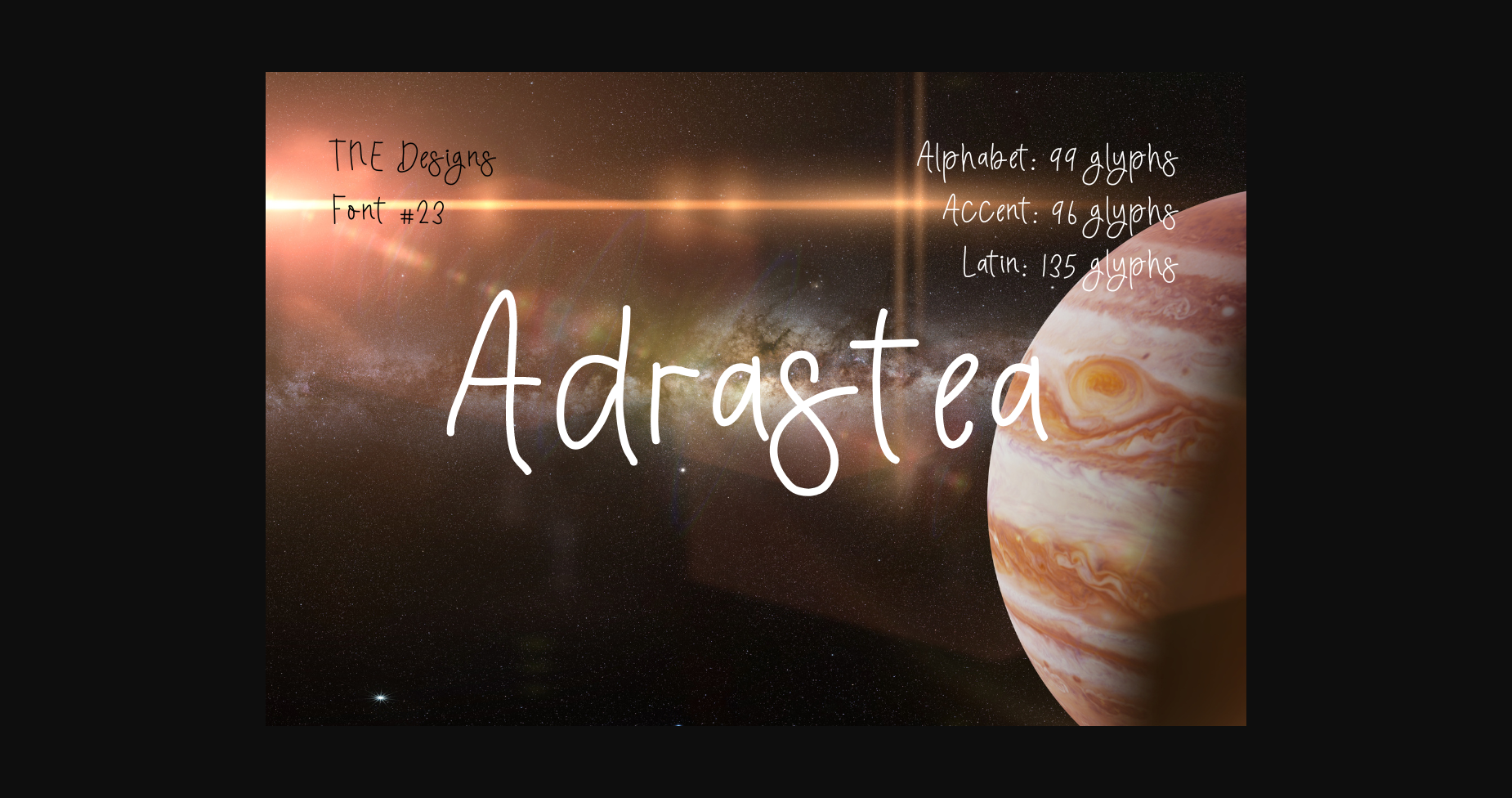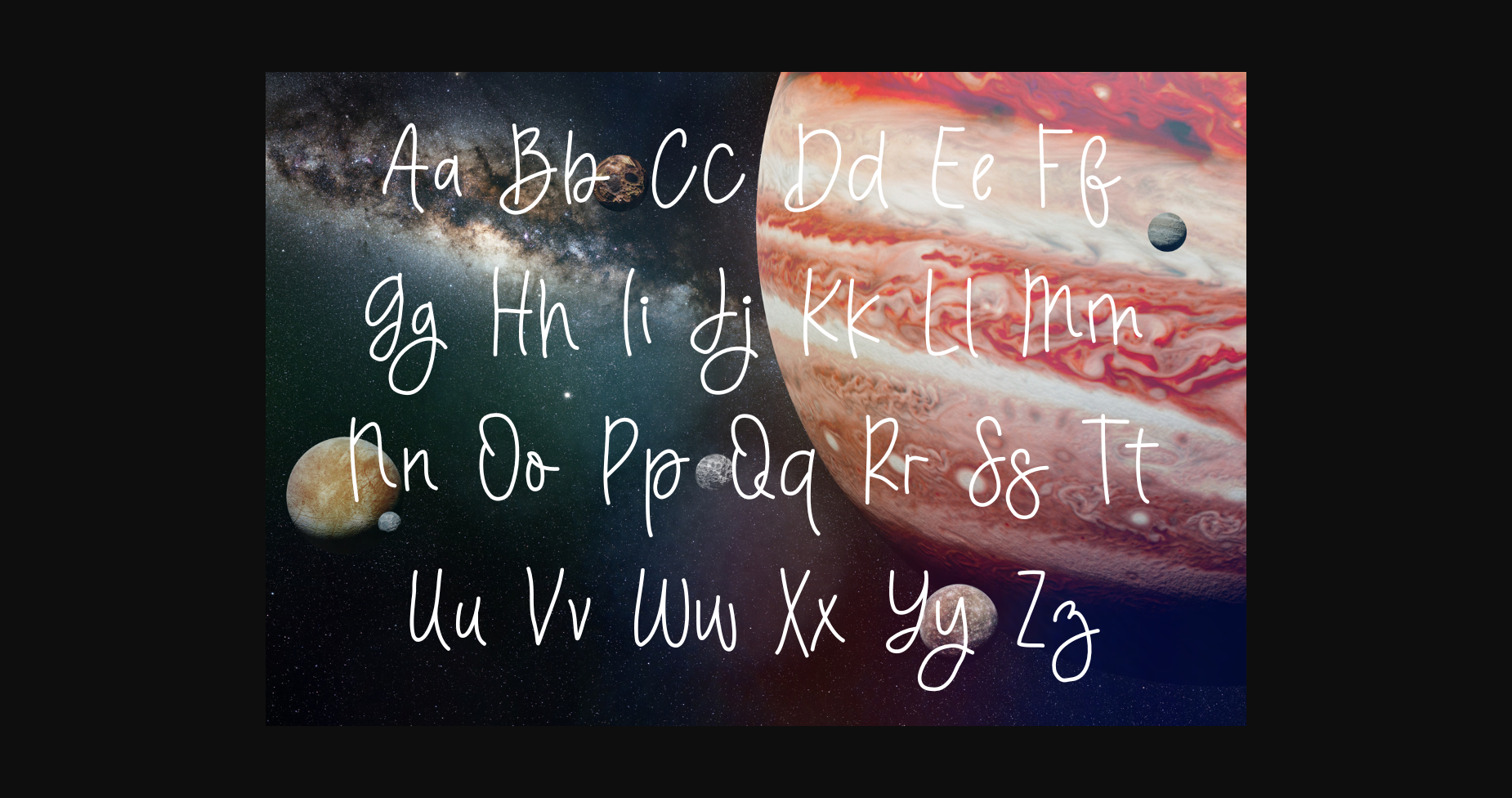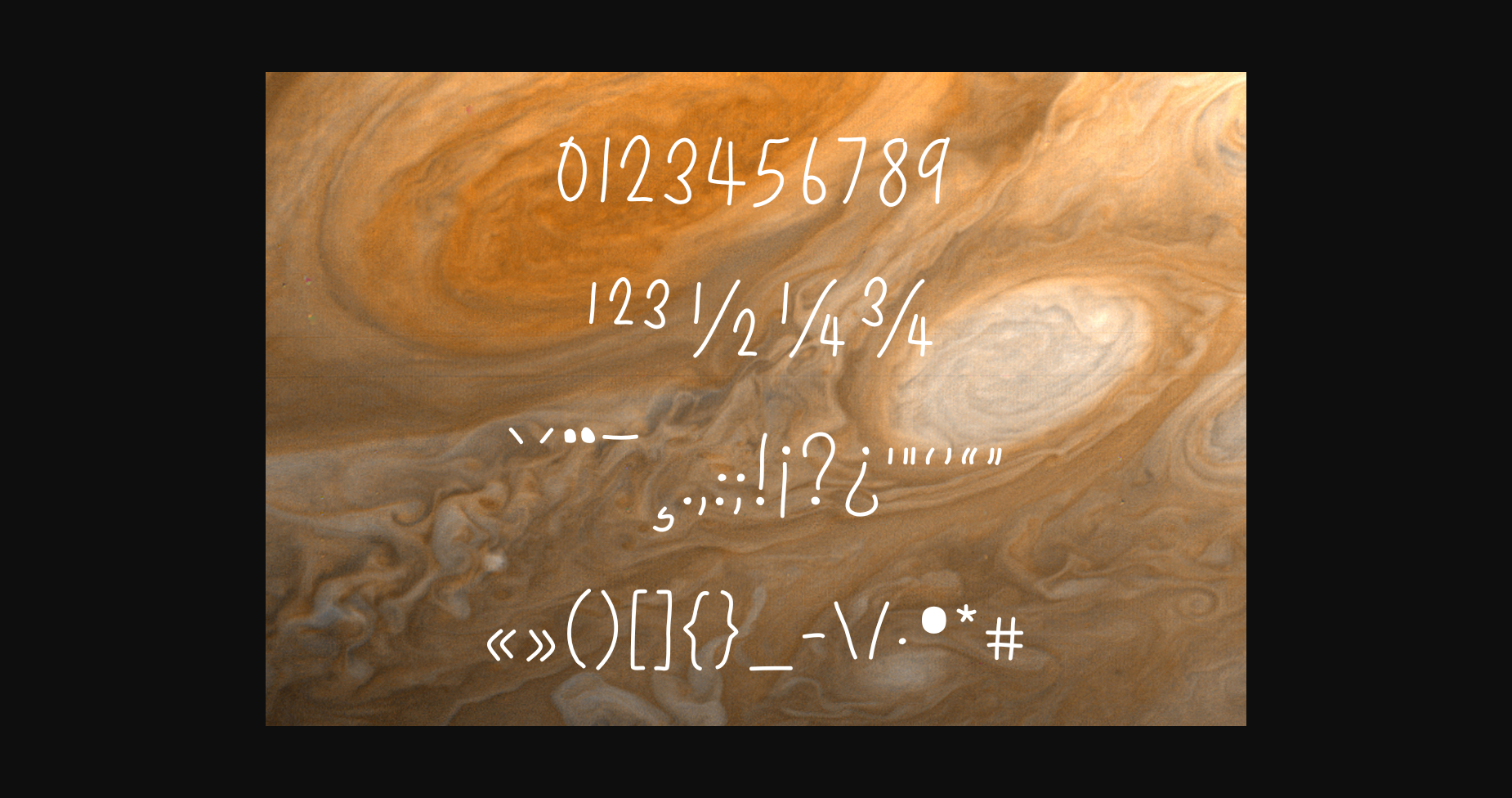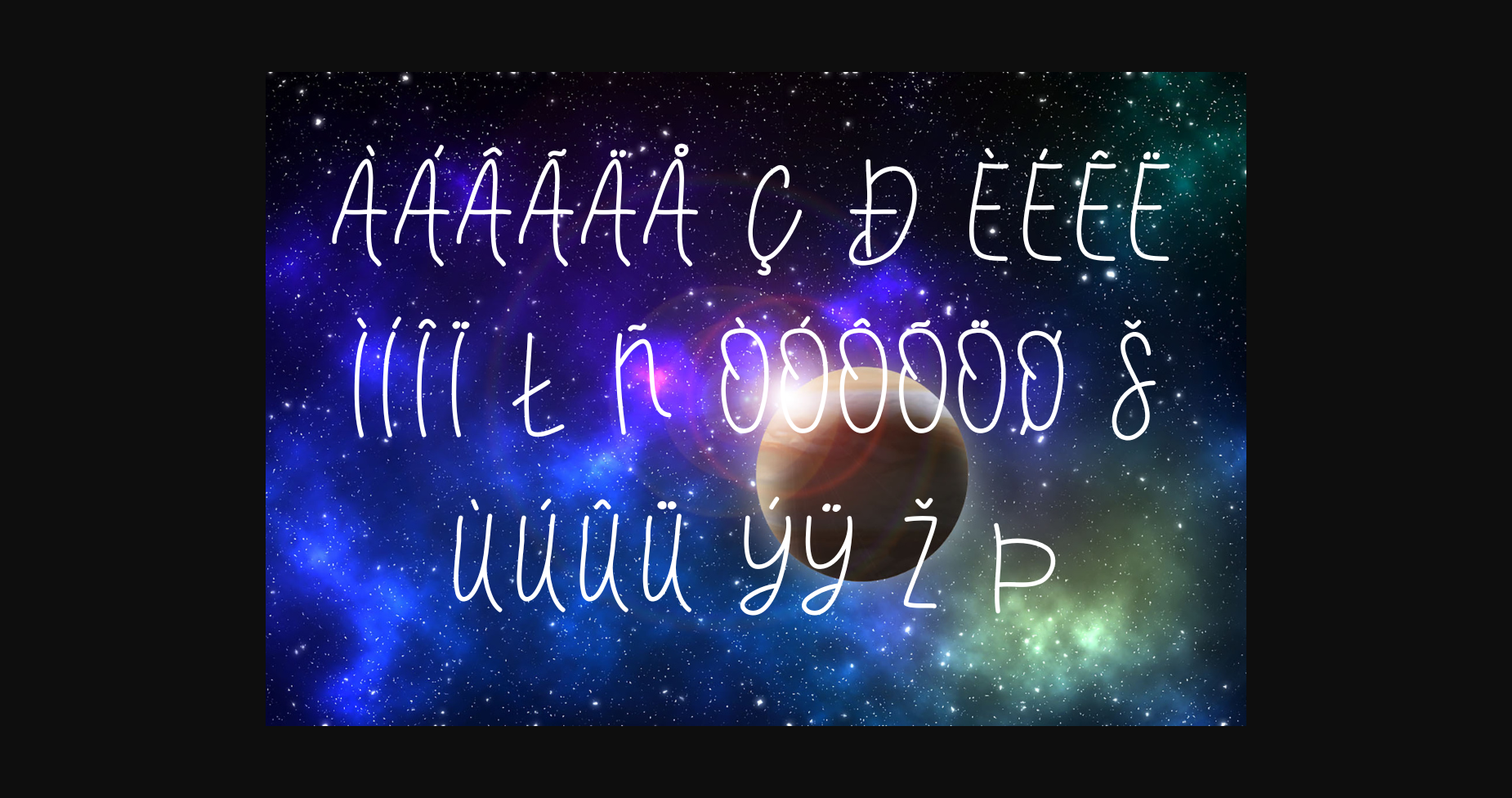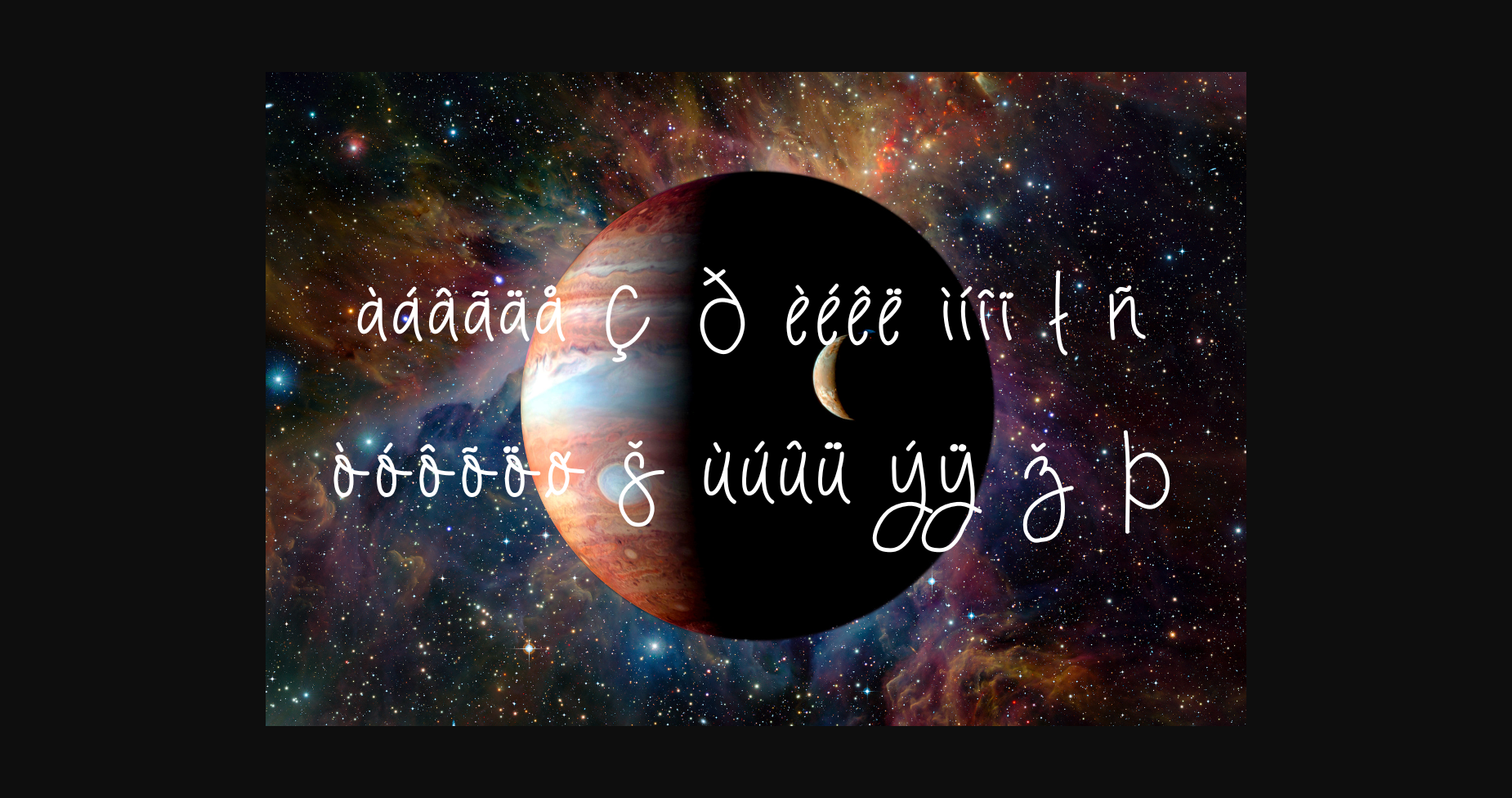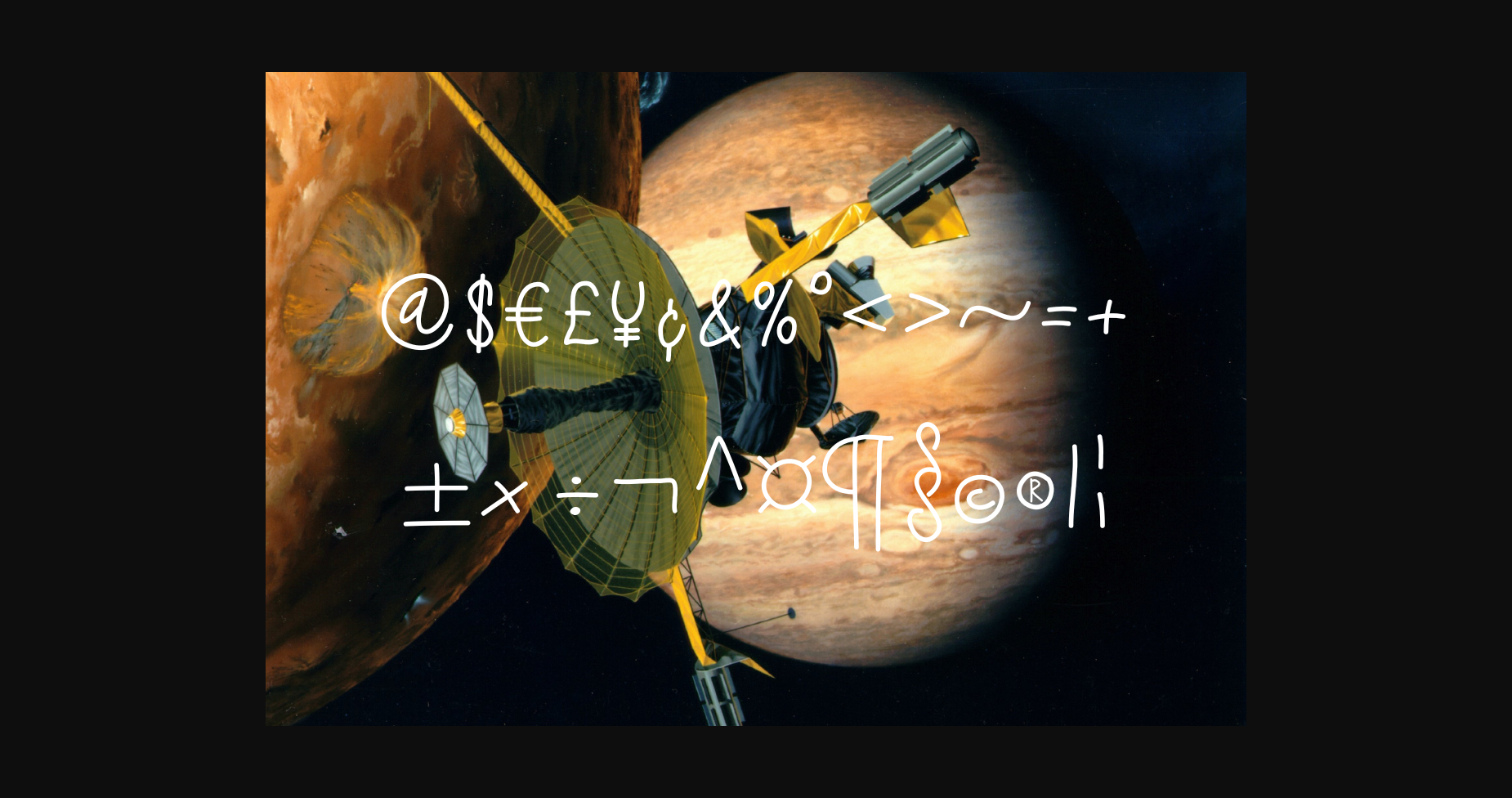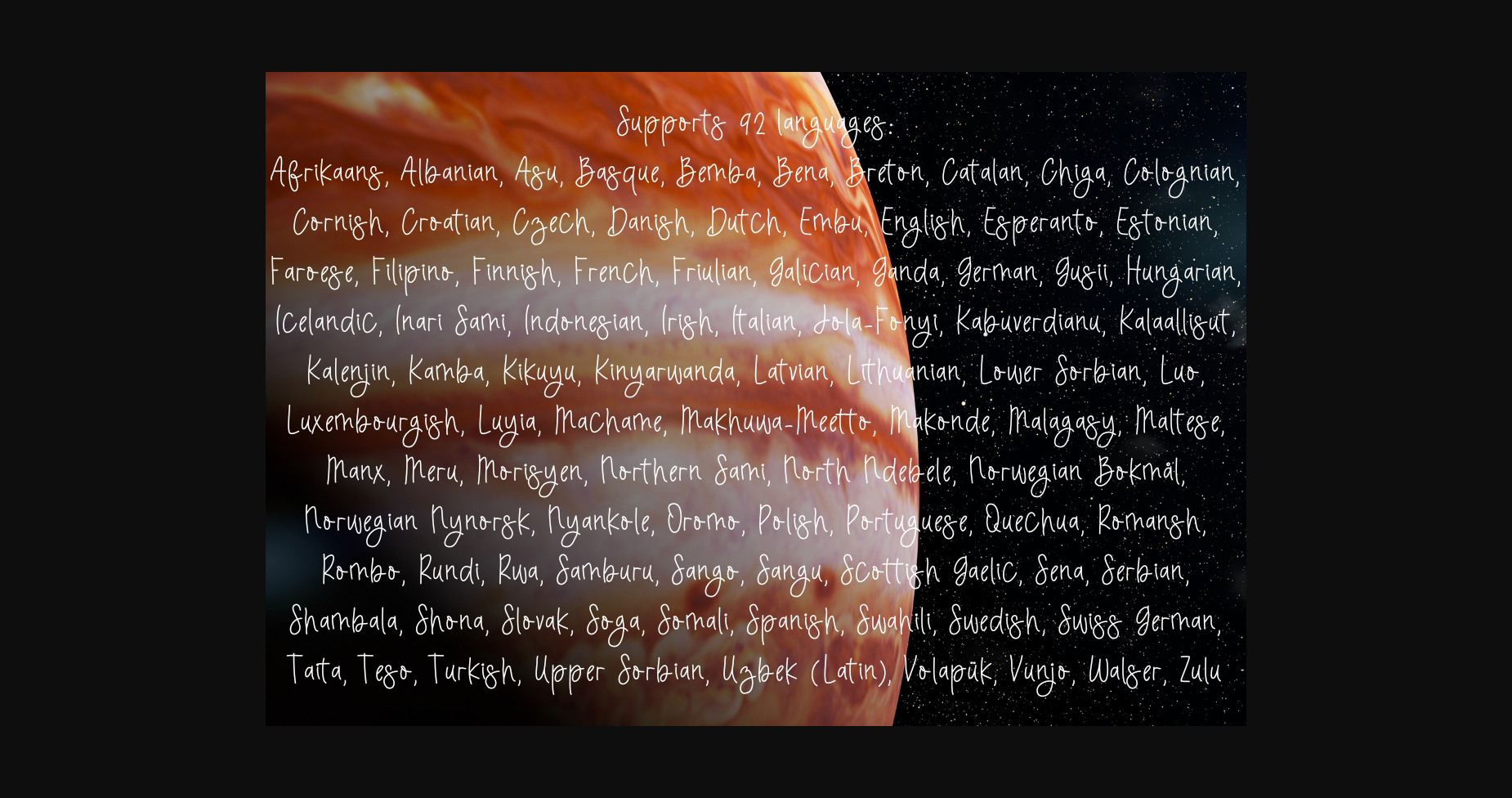
About Adrastea Font
Adrastea is a modern handwritten script. This font looks natural, stylish, and perfect for any extraordinary project that requires a handwritten feel. Its versatile style looks lovely on wedding invitations, thank you cards, quotes, greeting cards, logos, business cards, and every other design which needs a customized touch.